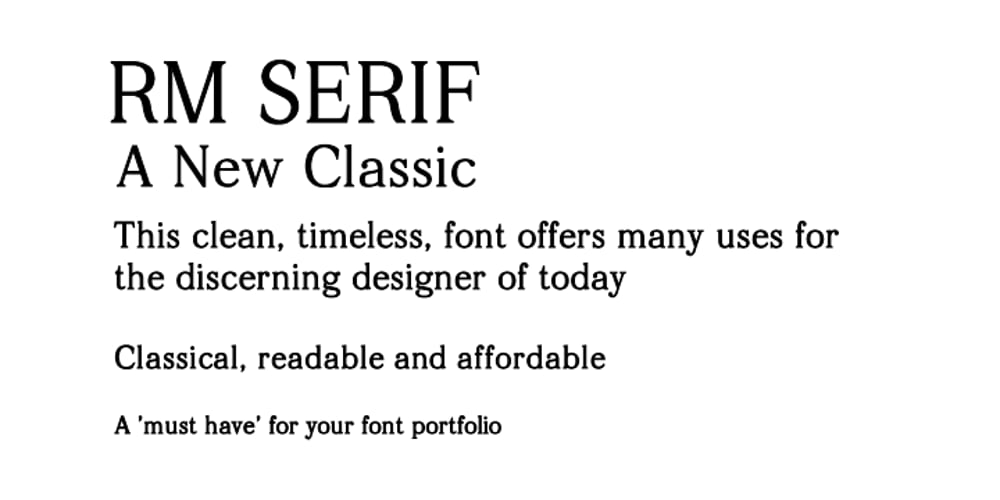
RM Serif
RM Serif font
RM Serif Font Family was designed by Ray Meadows and published by Ray Meadows. RM Serif contains 1 styles and family package options. A modern classic which will readily find a place in your font folder. Great effort has been taken to ensure the balance of color and weight for every glyph to promote flowing legibility. Due to the modular nature of this design there may be a slight lack of smoothness to the curves at very large point sizes (around 100 pt and above).